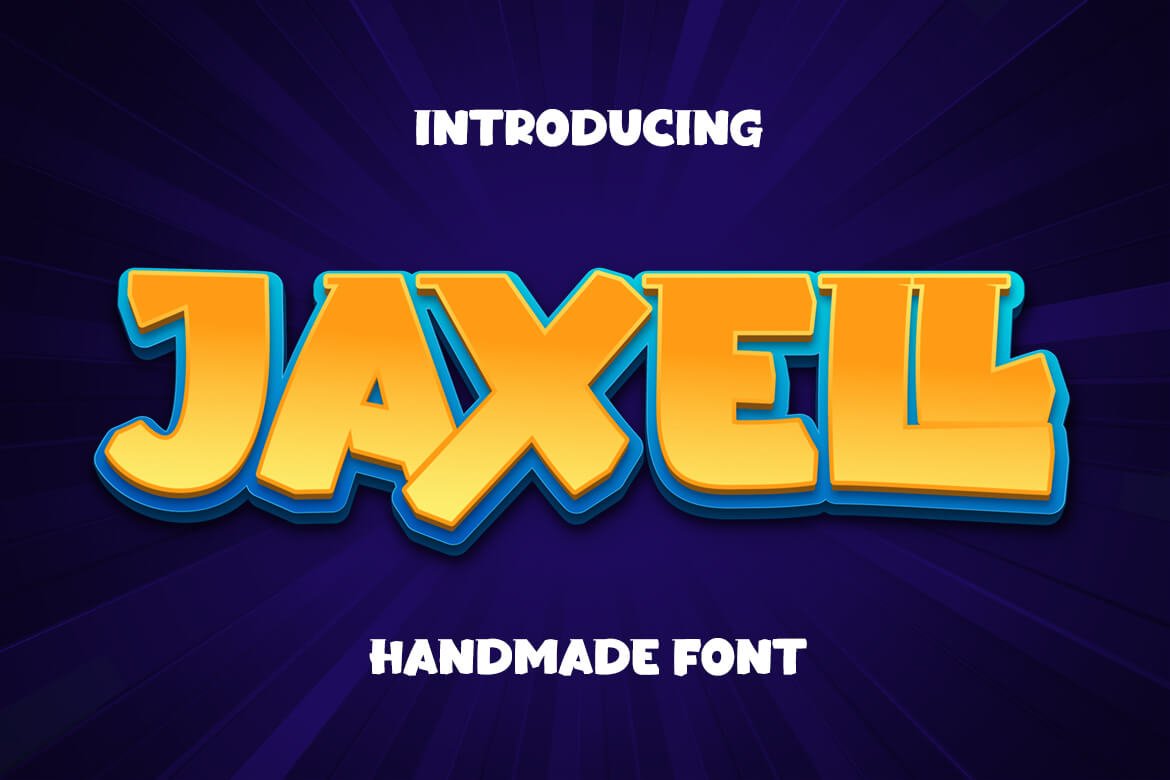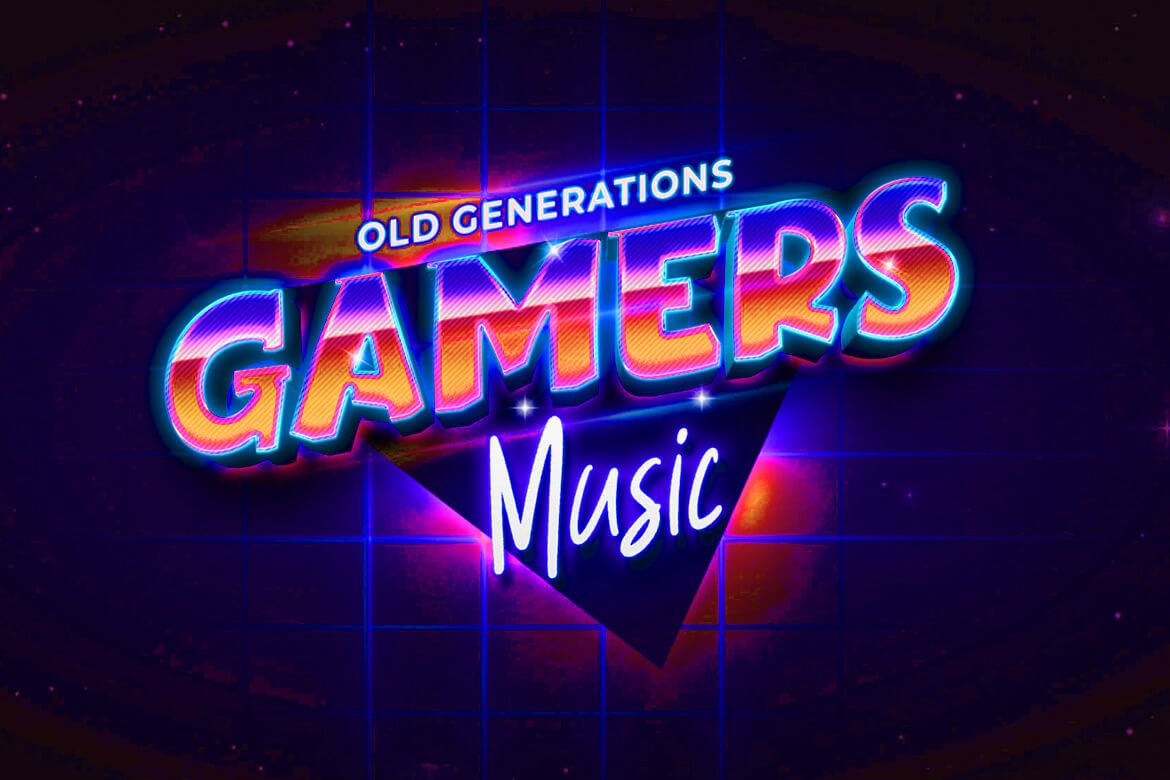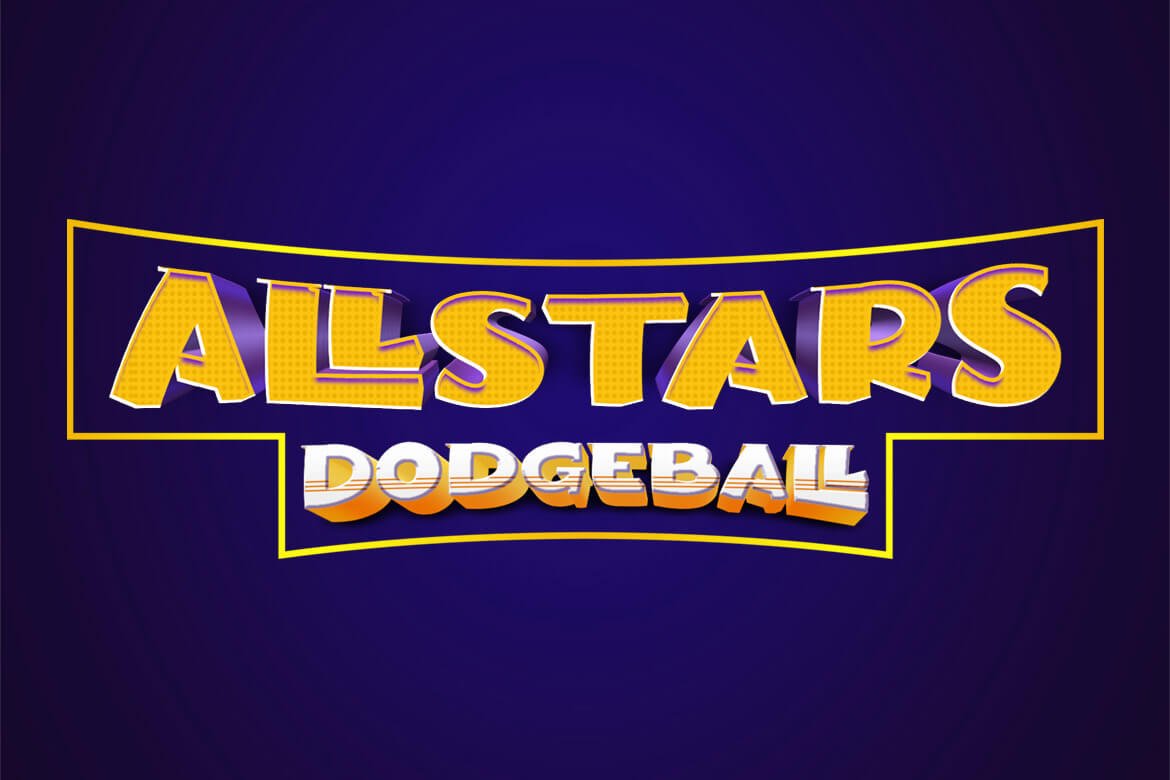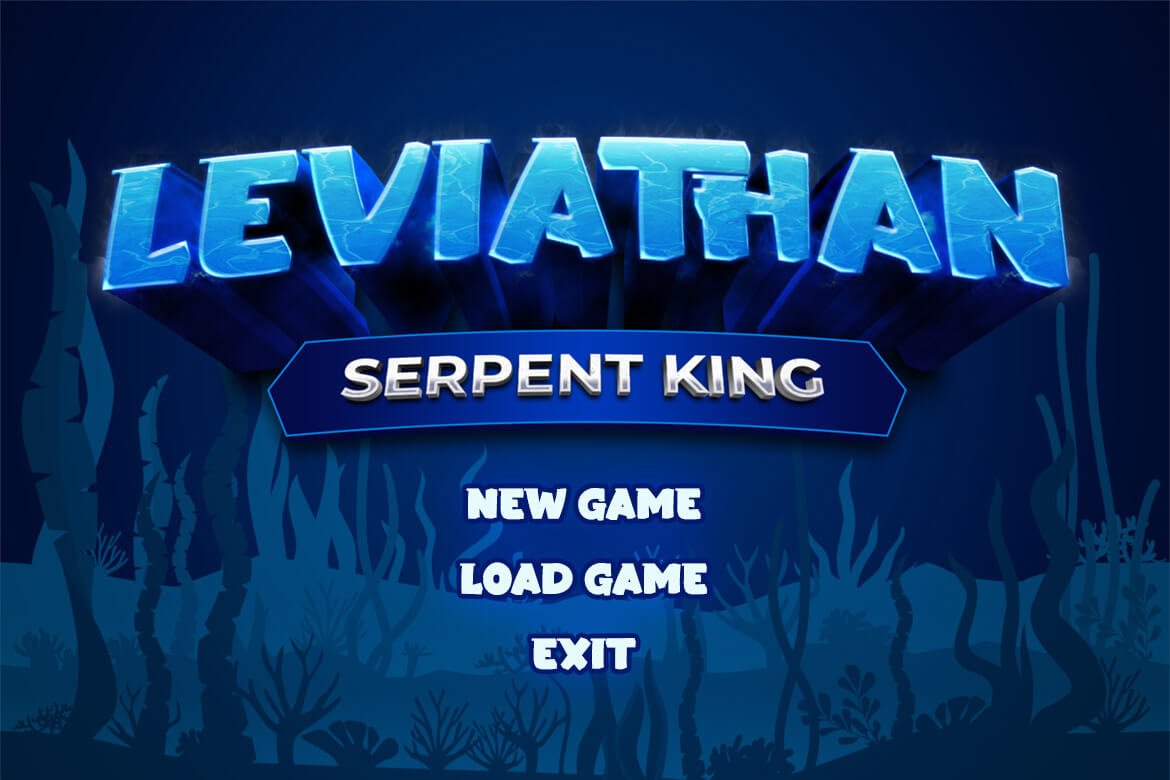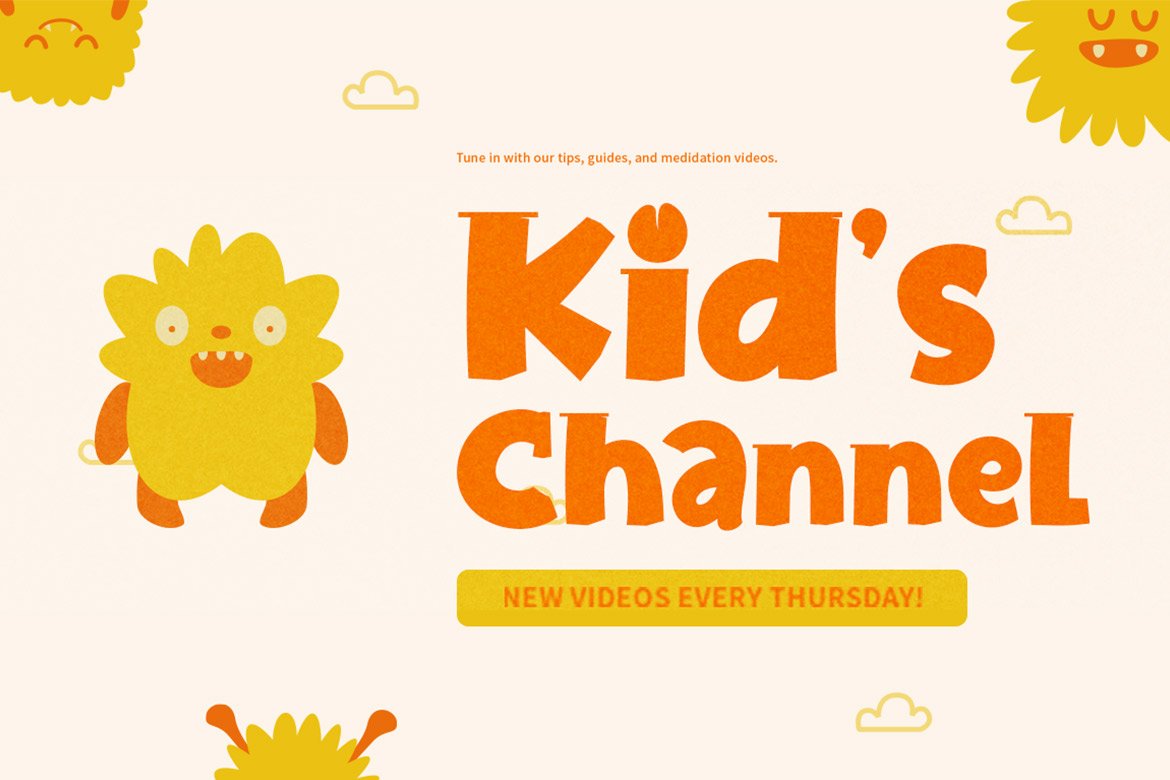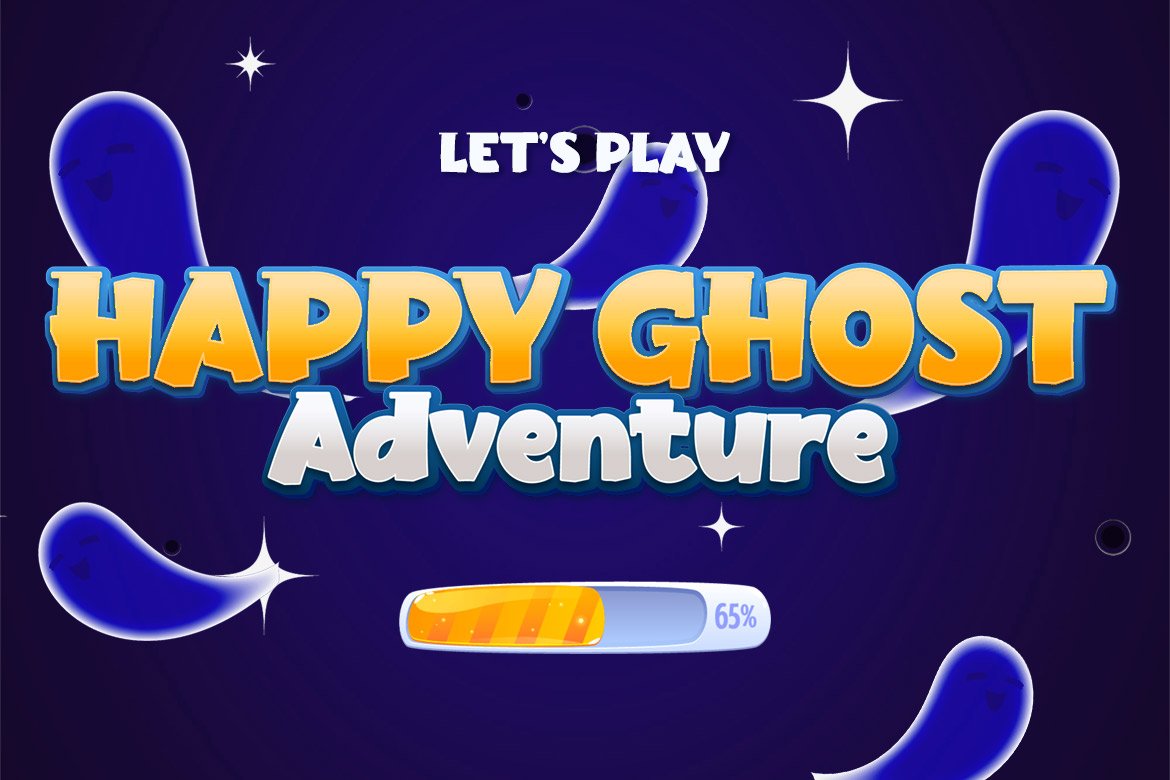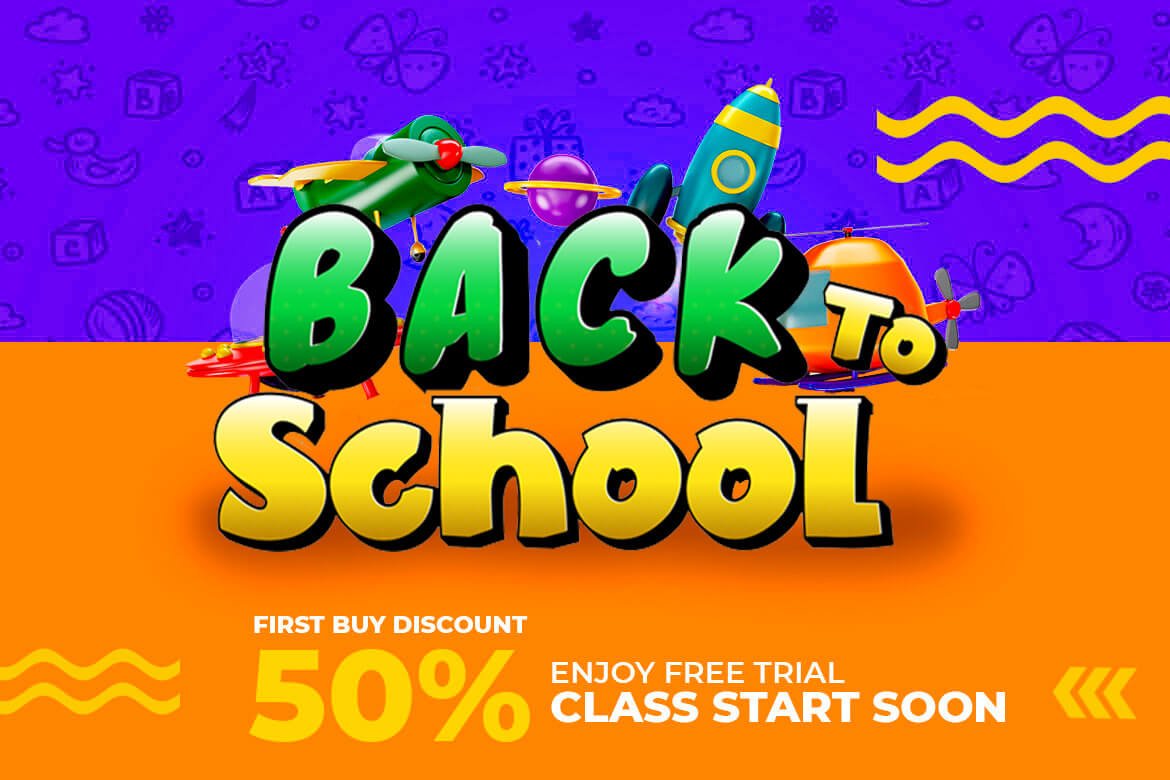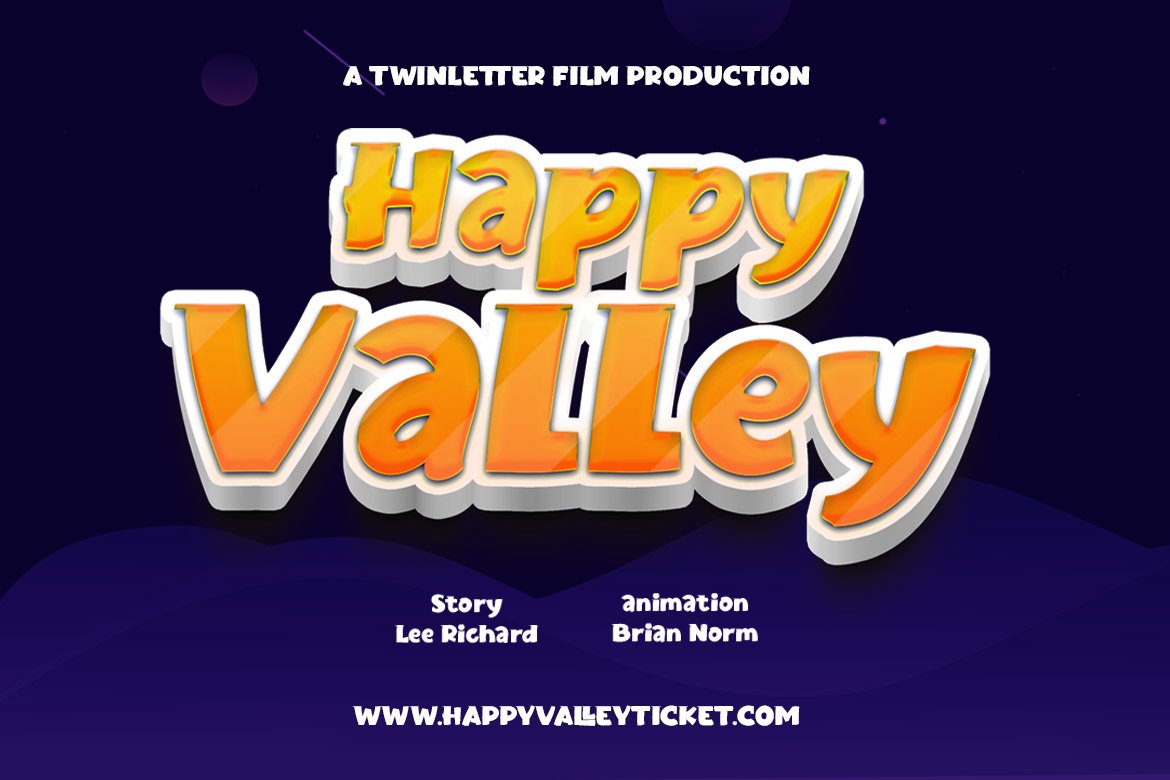
Jaxell
Jaxell is a whimsical display typeface with distinct and unique qualities that may be used as the title of your project, and it’s also lovely when used in sentence text.
This font is perfect for games, sporting events, branding, banners, posters, movie titles, book titles, quotes, logotypes, and more.
of course, your various design projects will be perfect and extraordinary if you use this font because this font is equipped with a complimentary font family, both for titles and subtitles and sentence text.